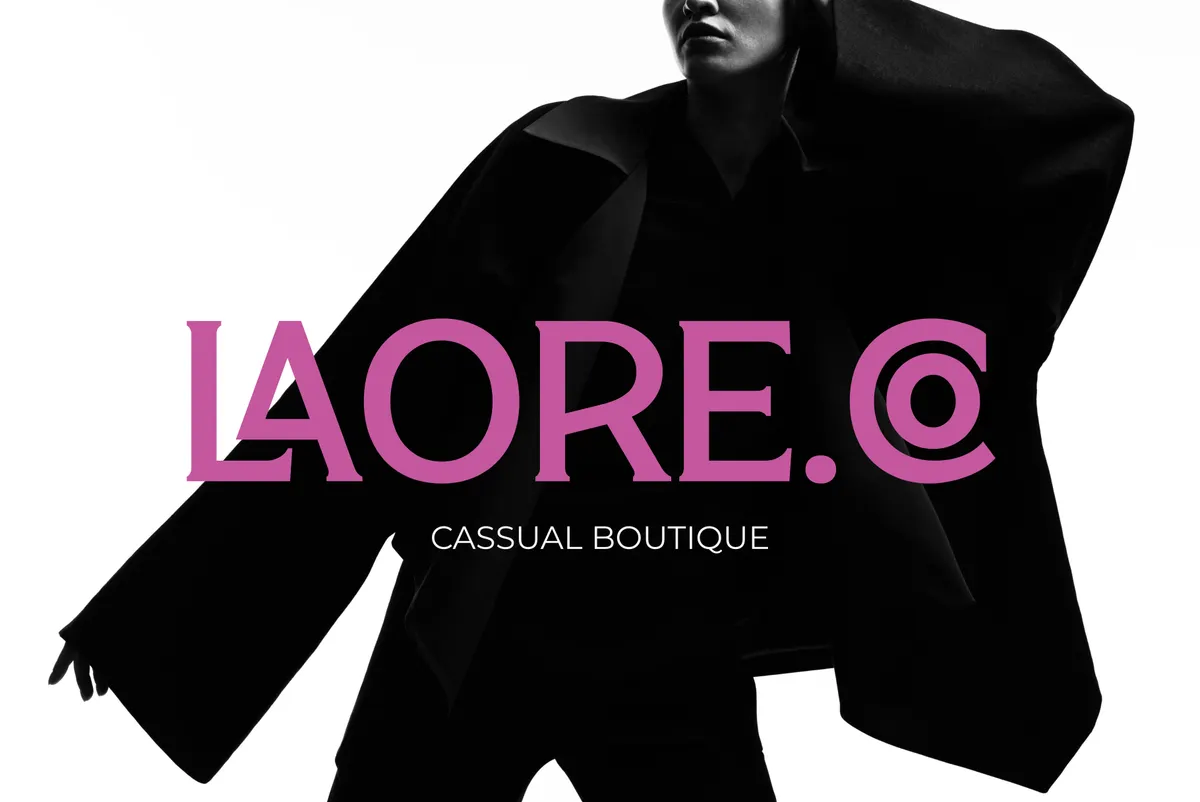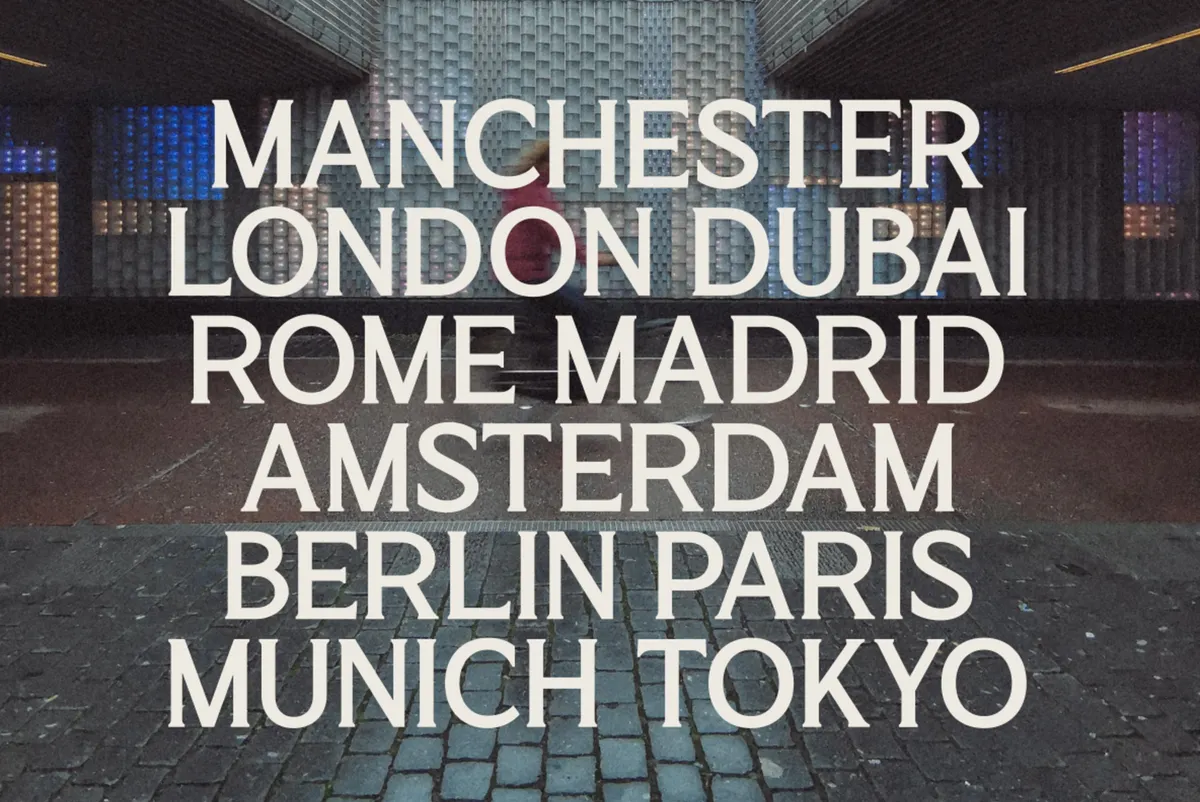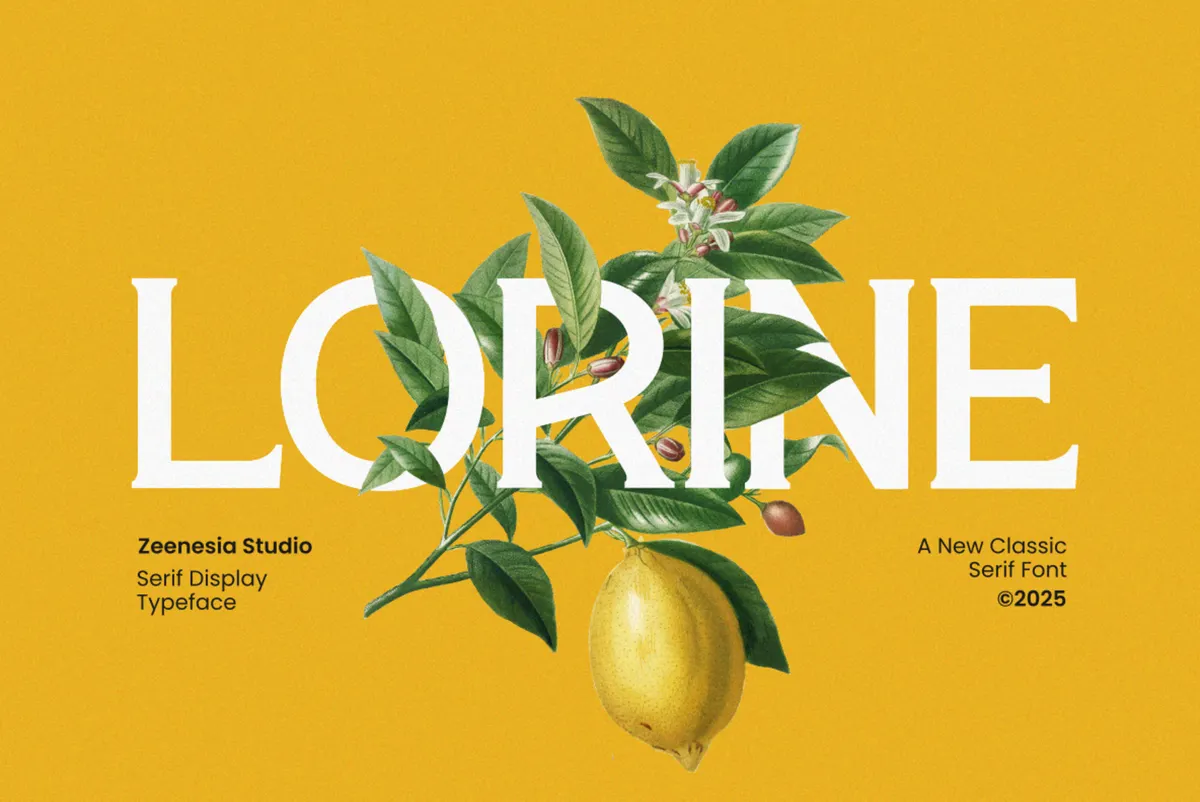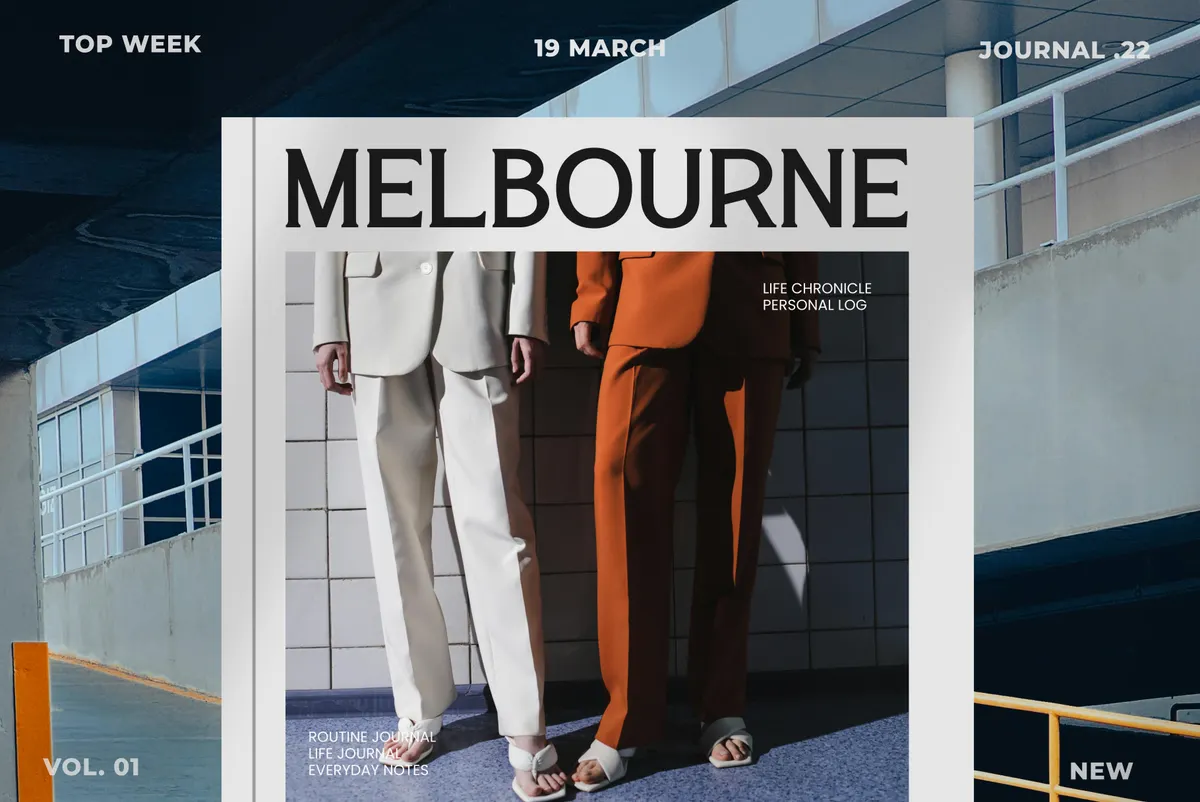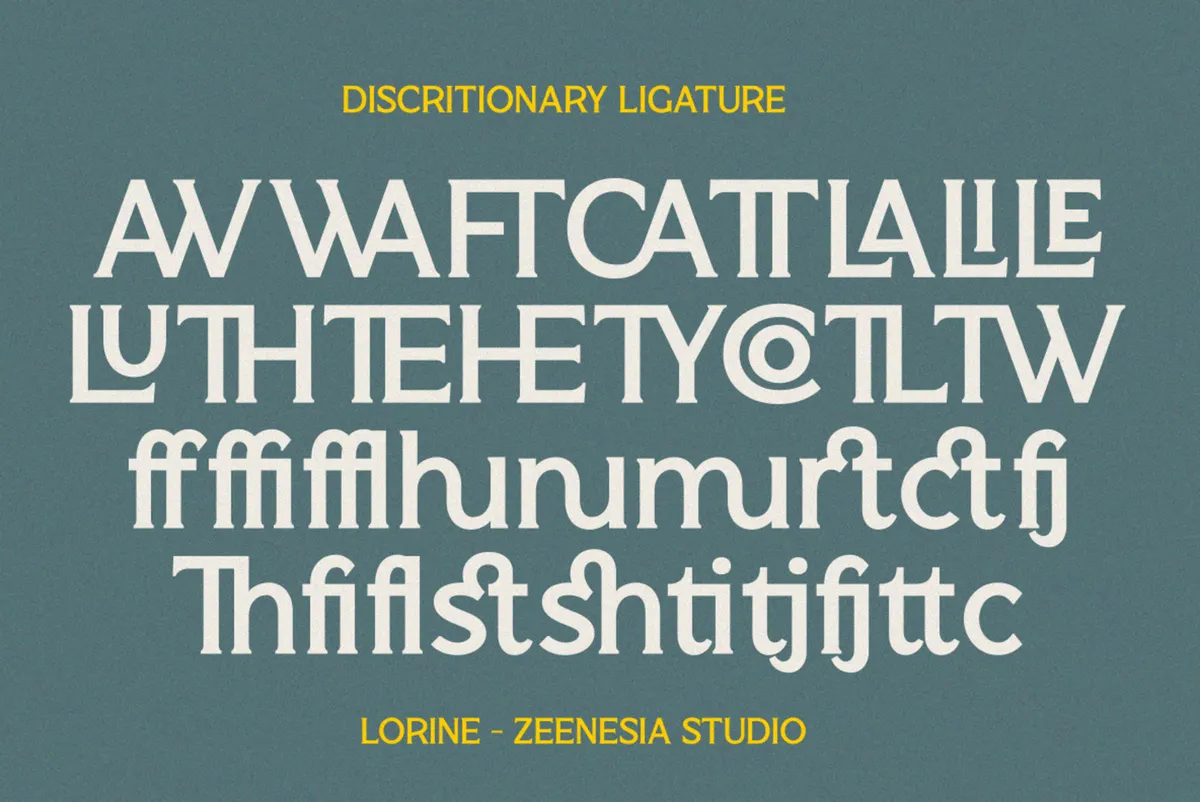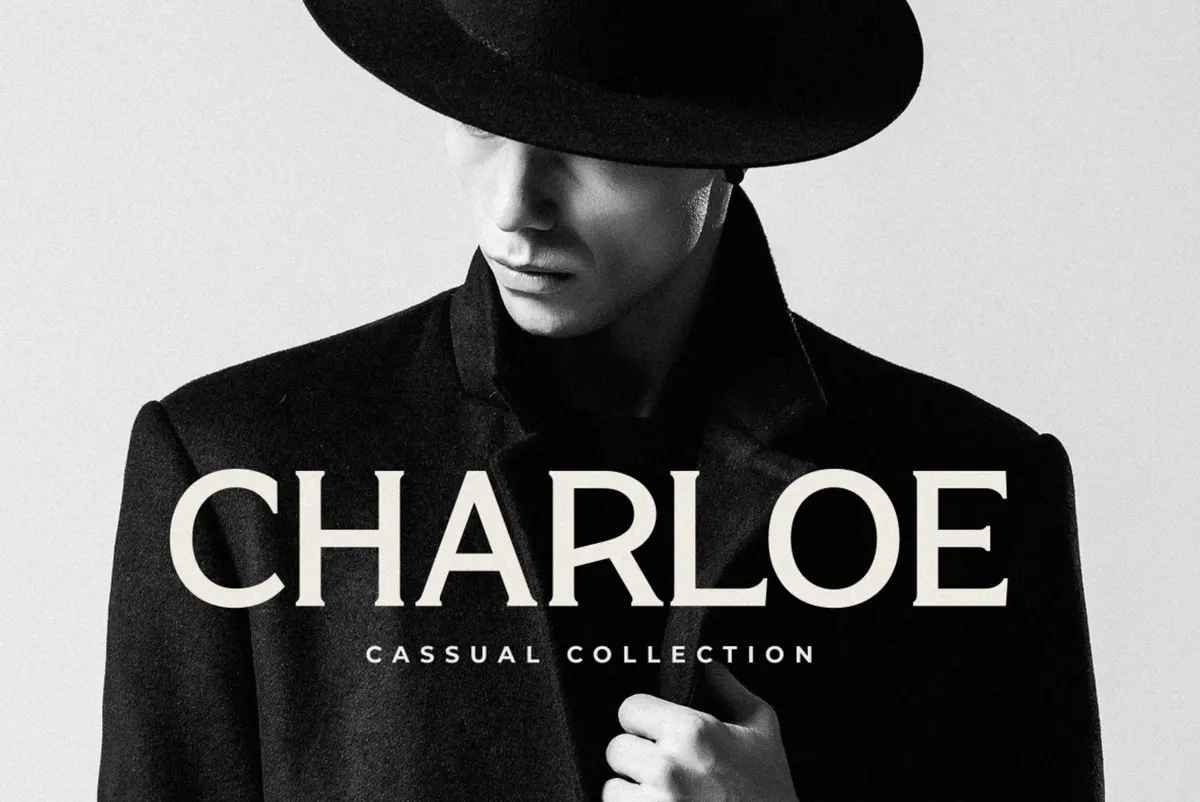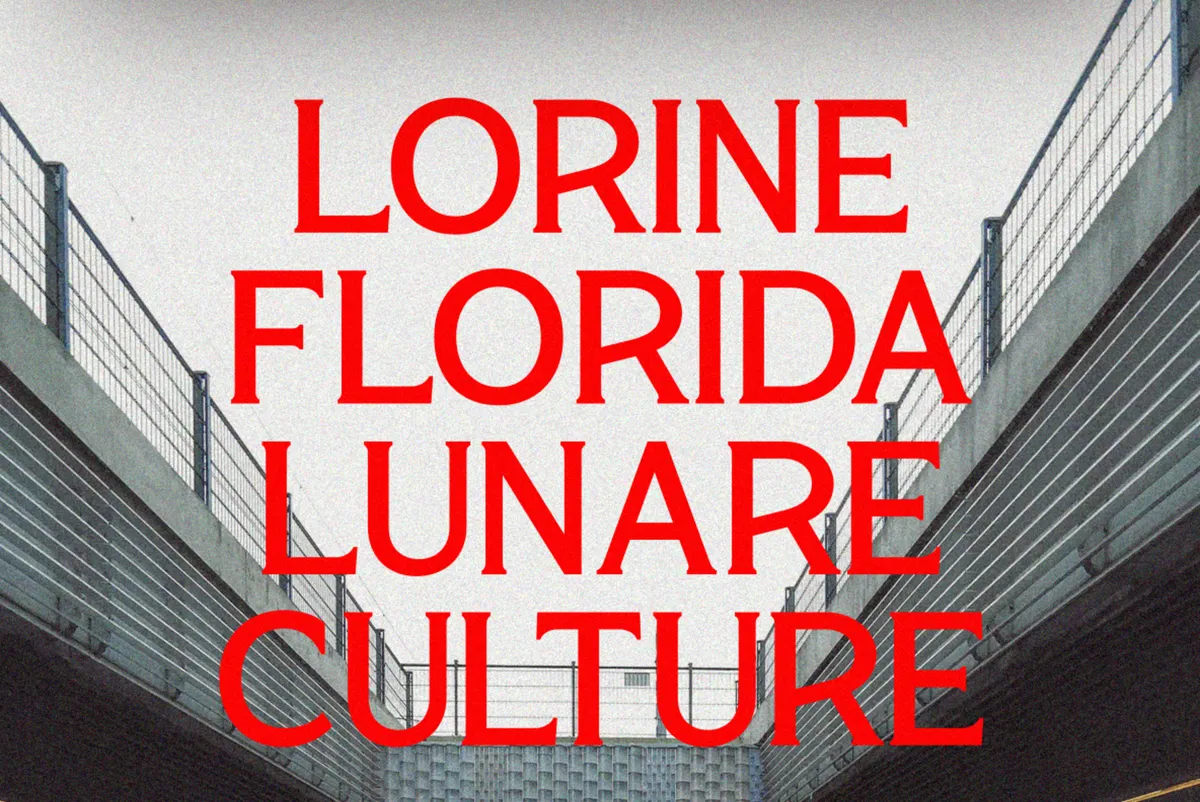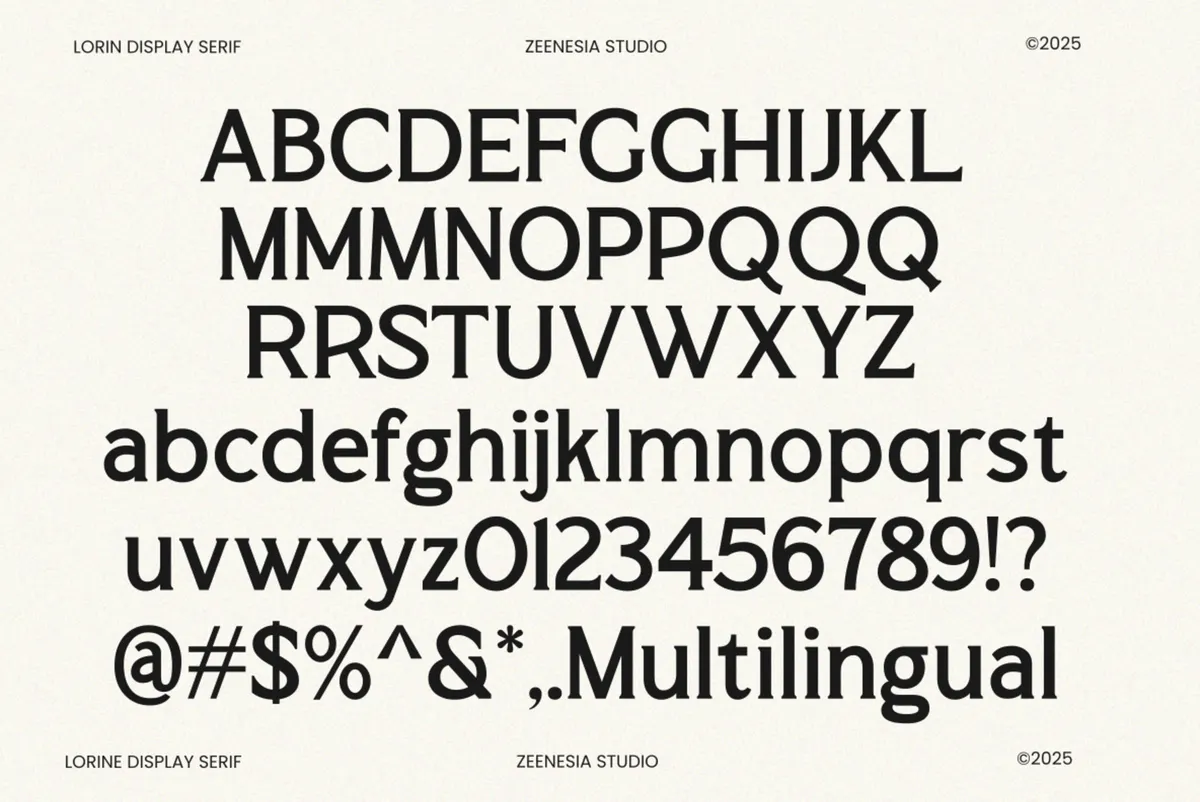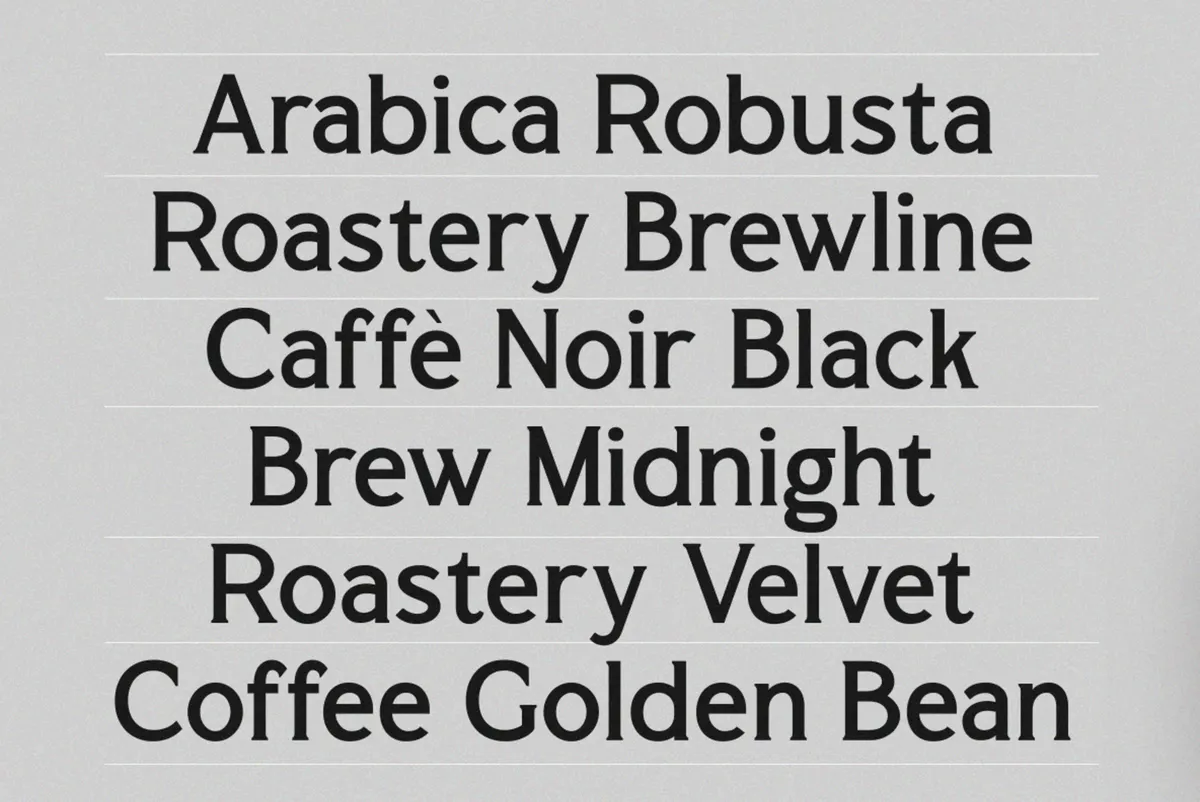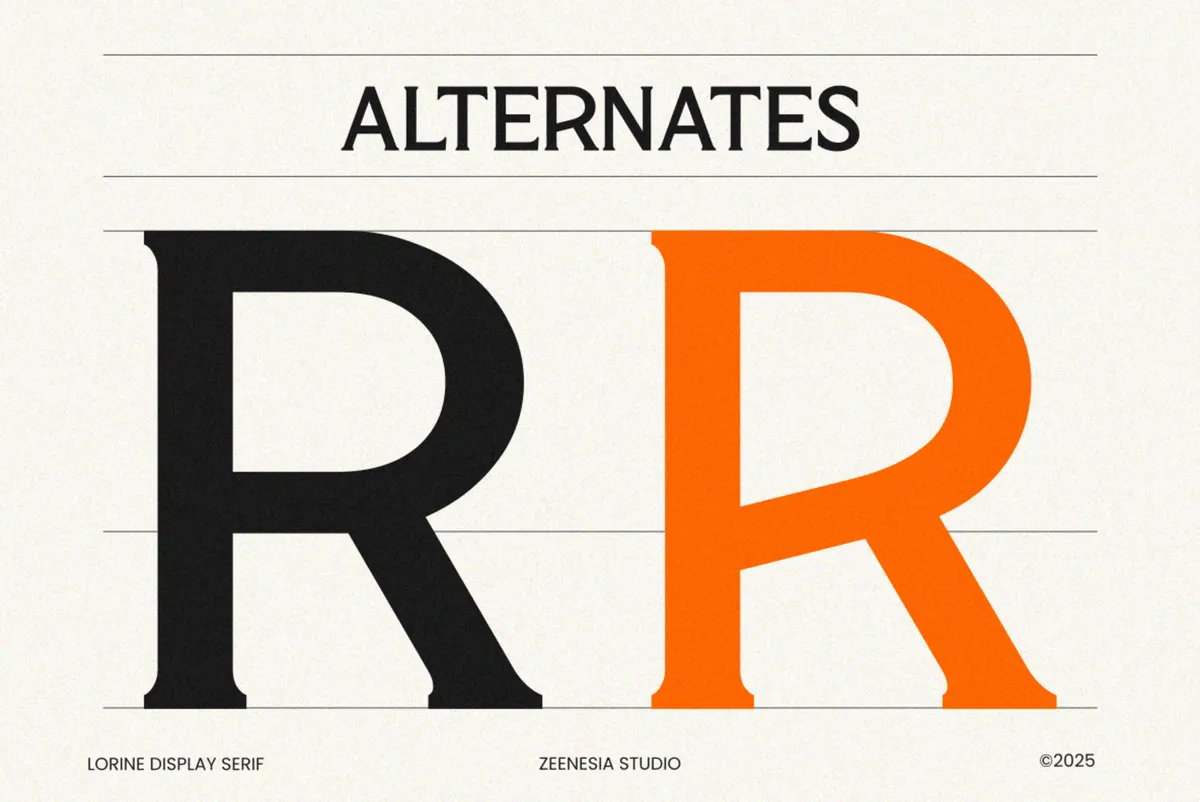
Lorine - Elegant Serif Display Font
LORINE
OBLIQUE
Lorine builds tall, high-contrast serif capitals with a refined editorial edge, closer to a fashion magazine masthead than a plain text serif. Regular and Oblique make up the pair, giving headlines a straight and a slanted option from the same file. Nine characters, G, M, P, Q, R, U, c, ß, and the ampersand, swap in alternate forms, all reachable through the OpenType panel.
Use it for branding, fashion projects, magazines, book covers, packaging, and high-end visual identities.
- Uppercase & lowercase;
- Numerals, punctuation & symbols;
- Regular and Oblique styles;
- 34 discretionary ligatures, stylistic alternates on select characters, fractions, superscript figures;